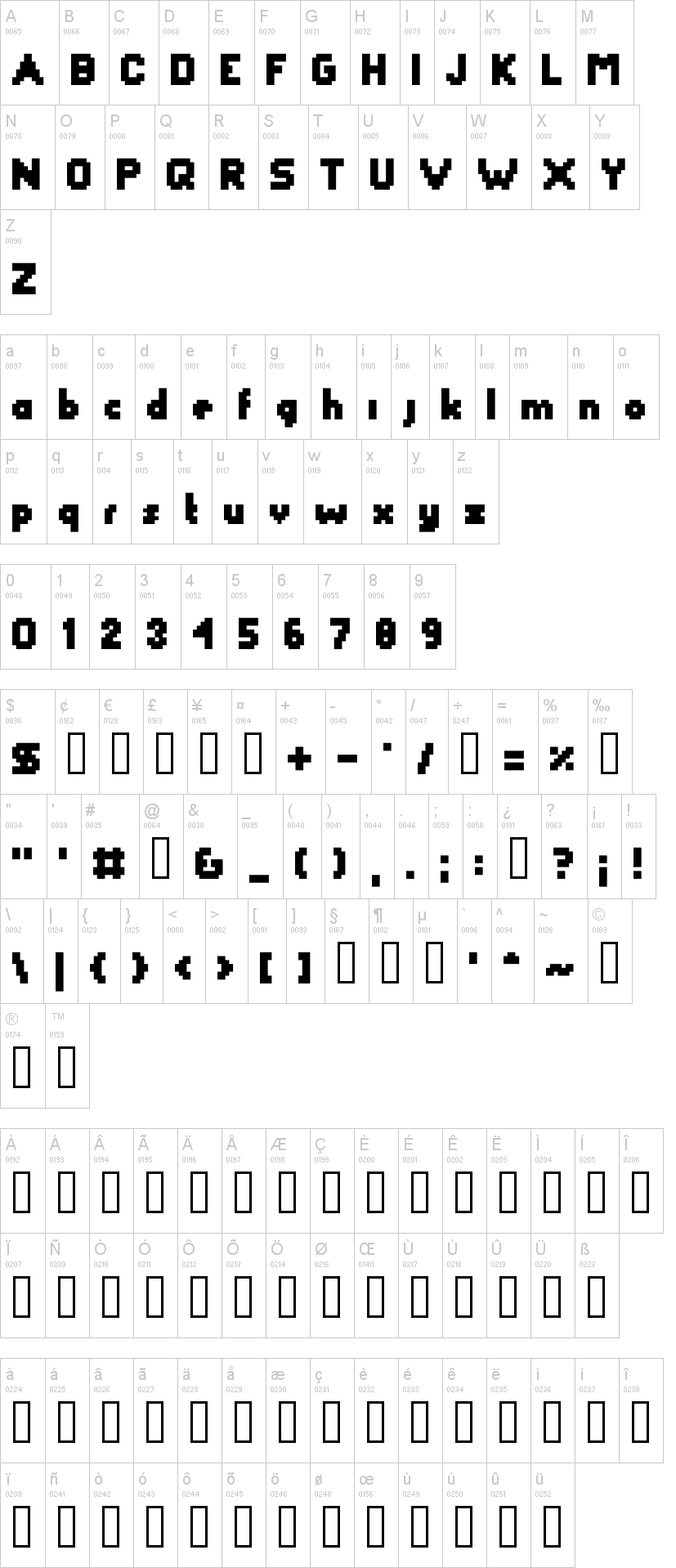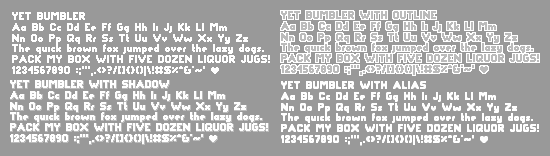
YetBumblerOutlin.ttfYetBumblerShadow.ttfYetBumblerAlias.ttfNote of the authorA font specifically made for use in Adventure Game Studios. Best viewed at 9 pixel size. Alias, outline, and shadow fonts are to be layered over the base font.